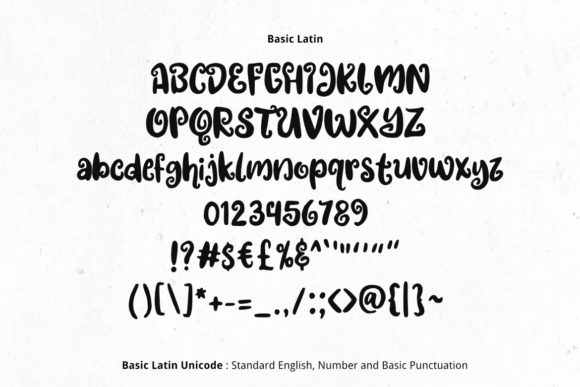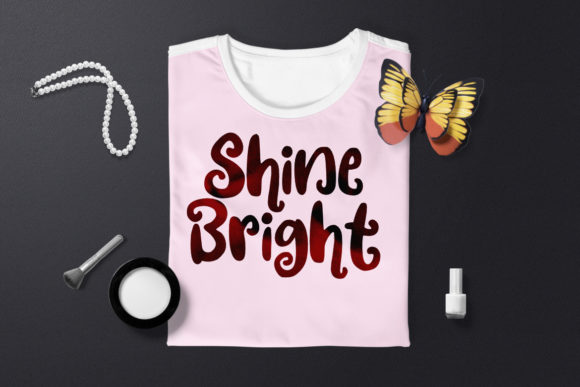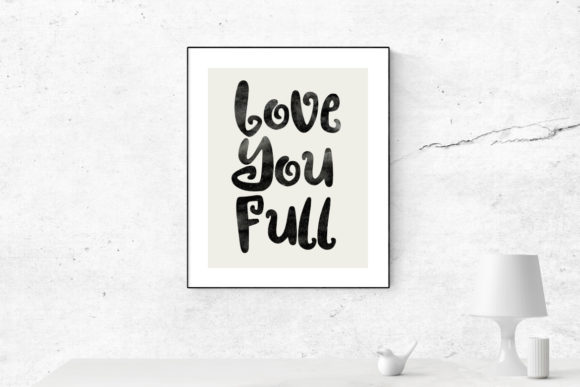
Introduction to Shaly Font
As designers, we’ve all been there – staring at a blank page, trying to bring our creative vision to life. But sometimes, it’s just one font that can make all the difference. For those who have been searching for that perfect combination of bold and sophisticated, your search may be over with the introduction of the Shaly Font.
With its chunky and extended characters, Shaly Font is a masterfully designed display font that is sure to elevate any creative project. Whether you’re working on a logo, branding, or packaging design, this high-quality font is a must-have in your design resource arsenal. And the best part? It’s available for free download, allowing you to add a touch of elegance to your work without breaking the bank. Plus, with a transparent background, you can easily layer it over any design element to create a truly unique look.
Key Features of Shaly Font
- High-quality design: Shaly Font is a well-crafted font that is perfect for creative projects that require a professional touch.
- Unique characteristics: Shaly Font features a unique blend of modern and vintage elements, making it an excellent choice for designers looking for something new and exciting.
- Size: The font family includes a range of sizes and styles, from light to bold, allowing for versatility in design applications.
Honest Review: Shaly Font
As a designer, I’m always on the lookout for high-quality design resources that can elevate my creative projects. Recently, I stumbled upon the Shaly Font, and I’m excited to share my thoughts on it.
Here are some aspects that I think work well with the Shaly Font:
- ✨ High-quality design: The font is beautifully crafted, with clean lines and a modern aesthetic.
- ✨ Transparent background: The font is designed with a transparent background, making it easy to use on any design surface.
- ⚠️ Limited character set: The font only includes a limited set of characters, which may not be suitable for all design projects.
- ⚠️ Not suitable for body text: Due to its unique design, the Shaly Font may not be the best choice for body text, but it’s perfect for headlines and titles.
Overall, I’m impressed with the Shaly Font. Its unique design and high-quality craftsmanship make it a valuable addition to any designer’s toolkit. With a little creativity, you can use this font to create stunning designs that stand out from the crowd.
Shaly Font
The Shaly Font is a unique and versatile design resource that can elevate any creative project. With its high-quality, transparent background, this font is perfect for adding a touch of elegance to your designs.
Tips for Getting the Most Out of Shaly Font
Some tips for getting the most out of the Shaly Font include experimenting with different font sizes and styles, combining it with other design elements, and using it to create custom graphics and illustrations.
The Shaly Font is perfect for a variety of creative projects, including wedding invitations, branding materials, and social media graphics. It’s also great for adding a touch of elegance to presentations, documents, and websites.